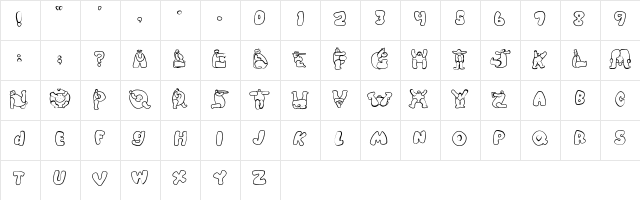
Chlorinuh Regular
Design Context for Chlorinuh Typeface
Chlorinuh is a composed and adaptable typeface that performs quietly and consistently across a wide range of design contexts.